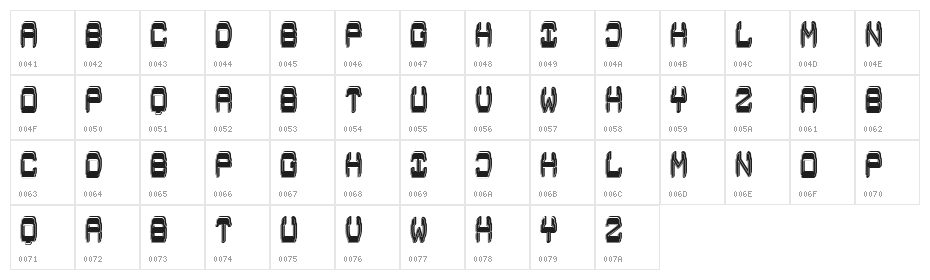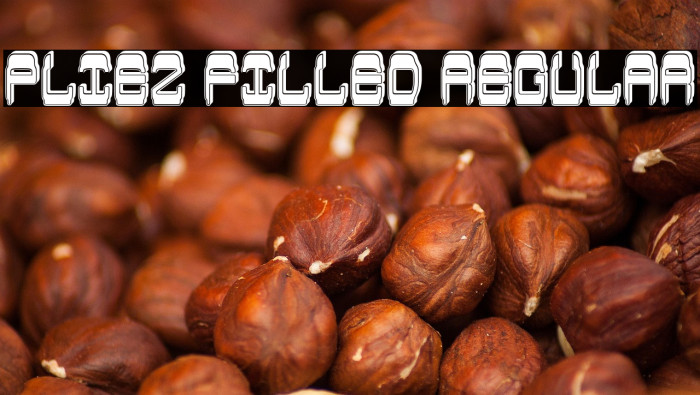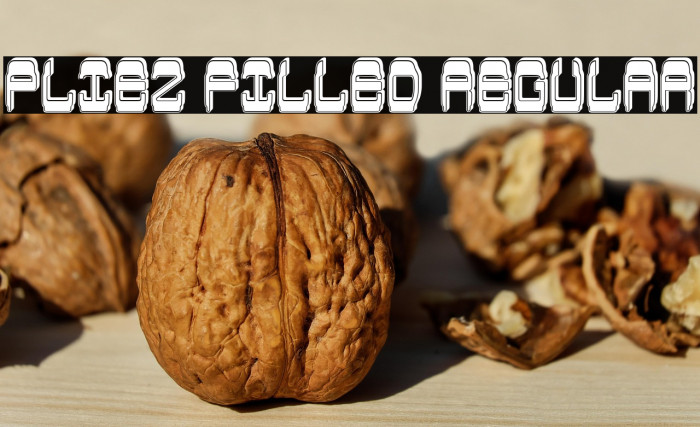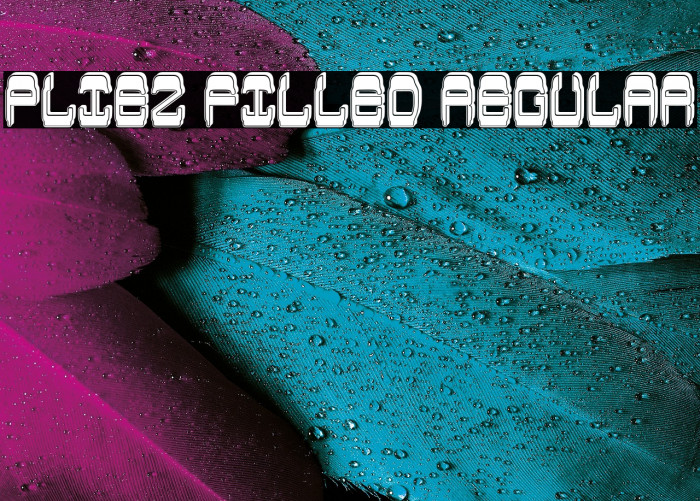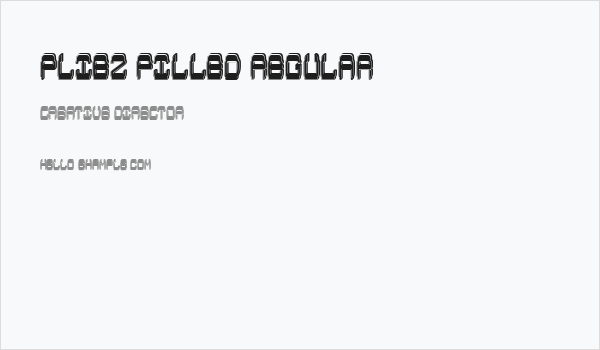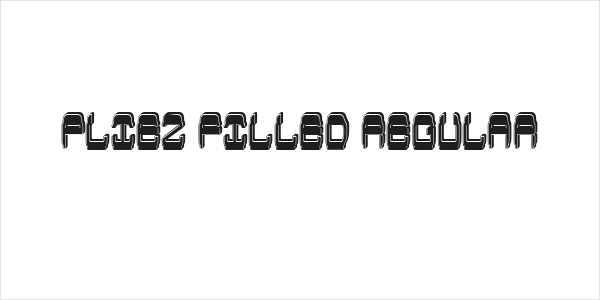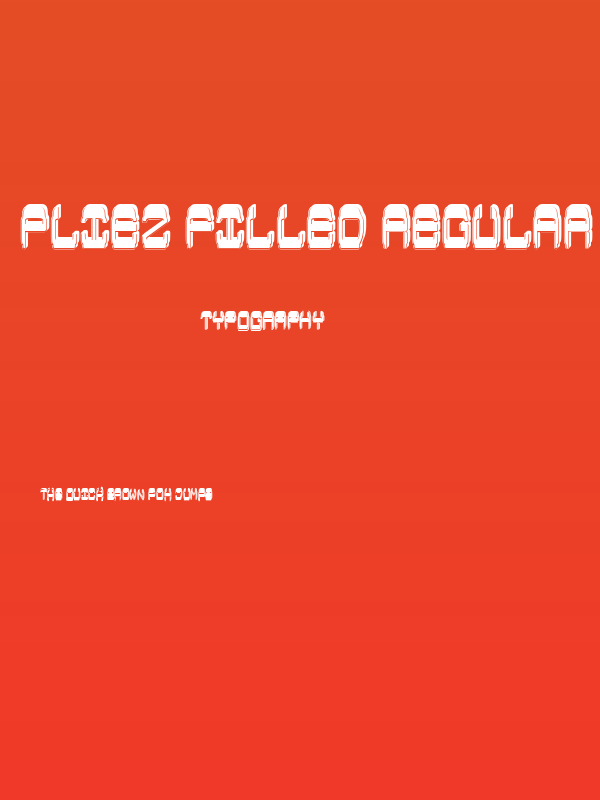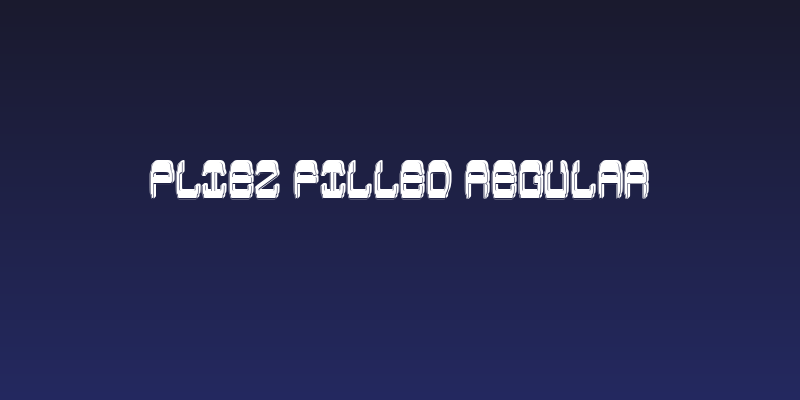
Pliez Filled Regular Font
Pliez Filled Regular Description
This font features a bold, futuristic design with a filled, three-dimensional appearance. The characters are outlined with a thick border, creating a striking contrast between the inner and outer sections. The geometric shapes and sharp angles give it a modern and edgy look, making it ideal for attention-grabbing headlines or logos. The uppercase letters are uniform in height, while the lowercase letters maintain a consistent style, enhancing readability. The numbers and special characters follow the same design principles, ensuring a cohesive appearance across all text elements.
| Proposed Projects | Ideal for sci-fi themed projects, tech branding, video game titles, and modern posters. |